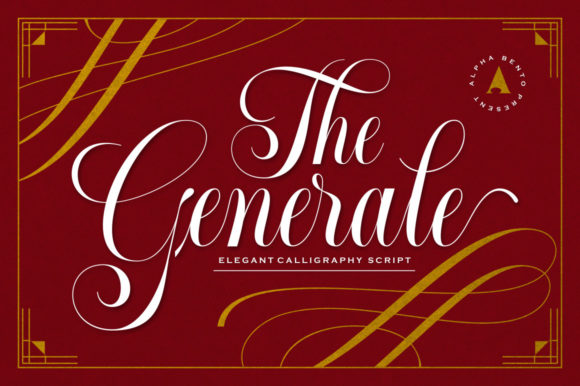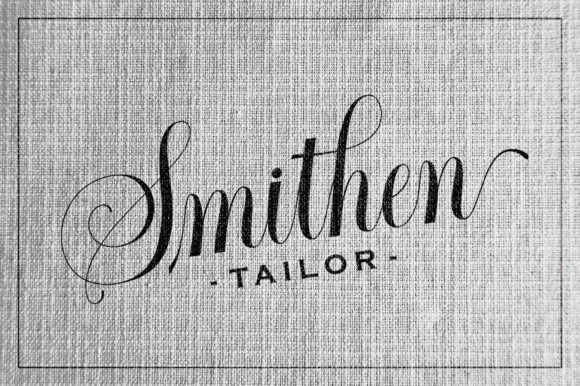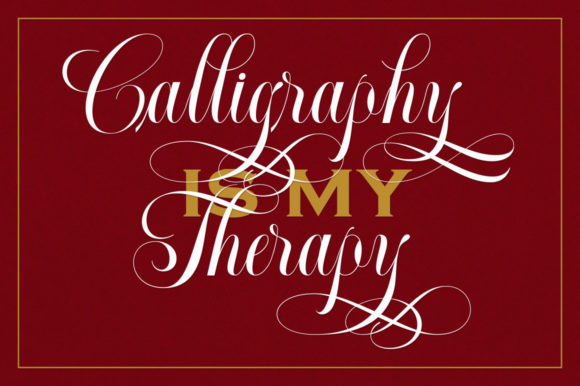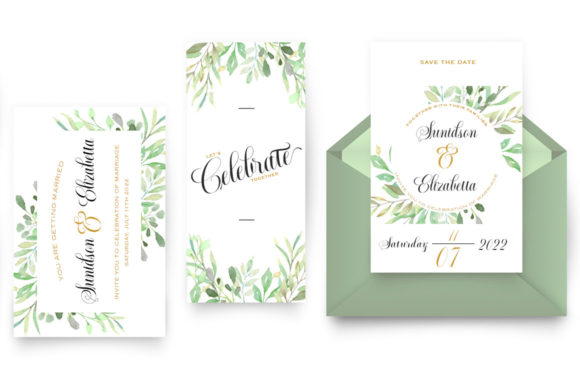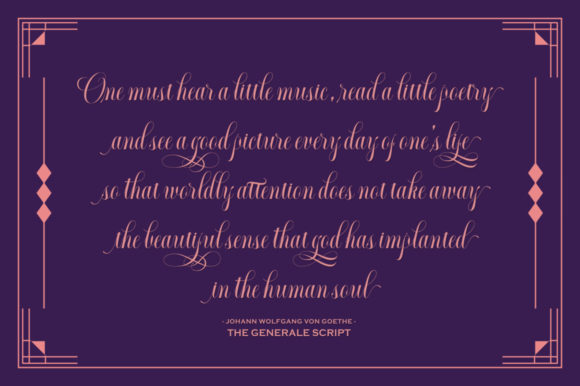
About Generale Script Font
Generale Script is an elegant script font with a contemporary atmosphere and impeccable form, inspired by timeless classic calligraphy. This font is PUA encoded which means you can access all of the beautiful glyphs and swashes with ease!